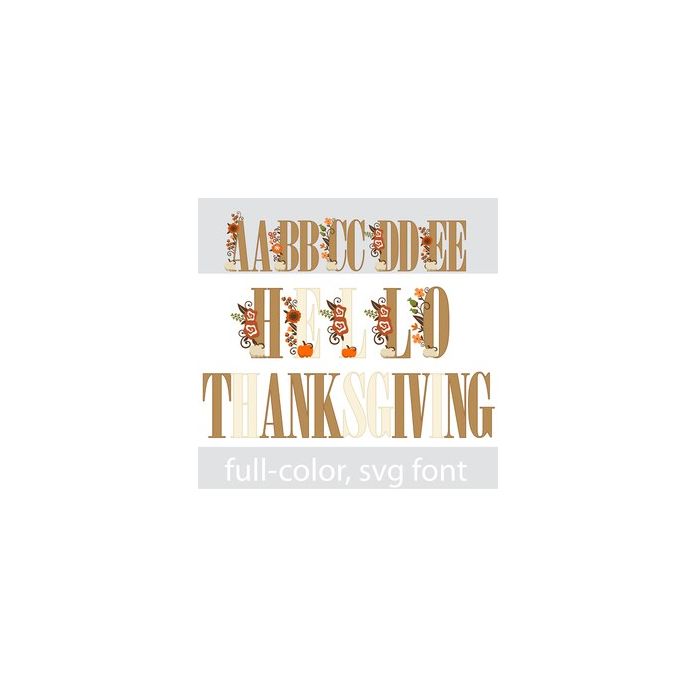
This full-color font features fall flowers on the uppercase serif font and a lowercase without. There is an alt case w/ additional colors you can access through your system or Silhouette's glyph map.